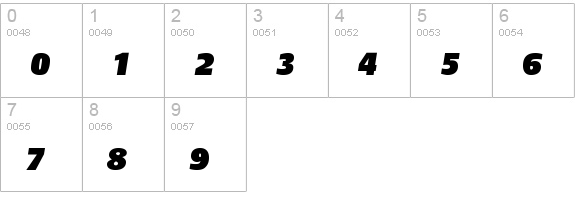
DTLArgoTCaps-HeavyItalic Font Details
DTLArgoTCaps-HeavyItalic is a bold and stylish font that exudes confidence and sophistication. Its heavy italic design adds a touch of elegance to any project, making it perfect for headlines, titles, and branding materials. The unique combination of sharp edges and smooth curves creates a striking visual impact that is sure to capture attention. This font is not only visually appealing but also highly versatile, suitable for a wide range of design applications. Whether you're working on a website, poster, logo, or any other creative project, DTLArgoTCaps-HeavyItalic will help you make a bold statement. What's even better is that this font is available for free download at FontsMarket.com. So, if you're looking to add a touch of sophistication to your designs without breaking the bank, make sure to check out DTLArgoTCaps-HeavyItalic today.